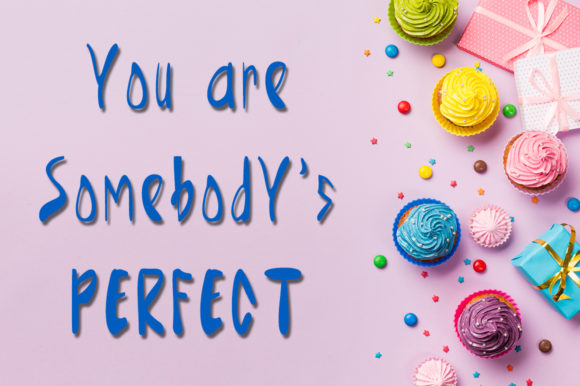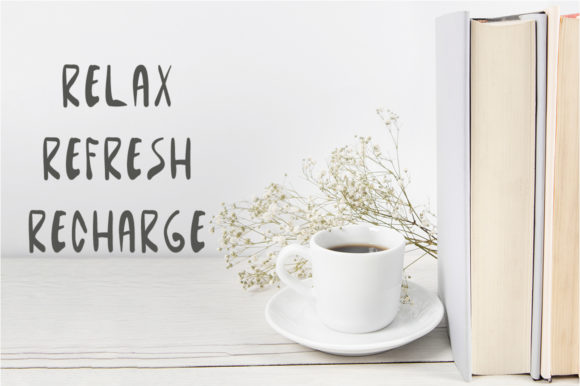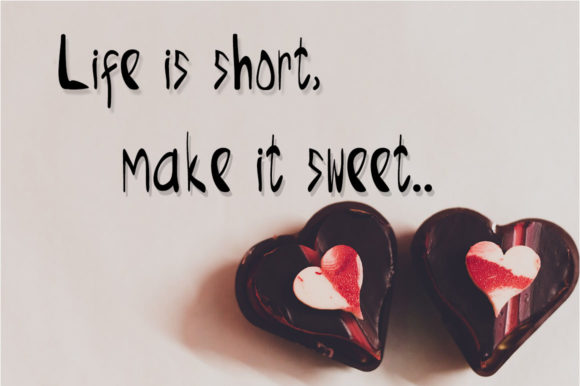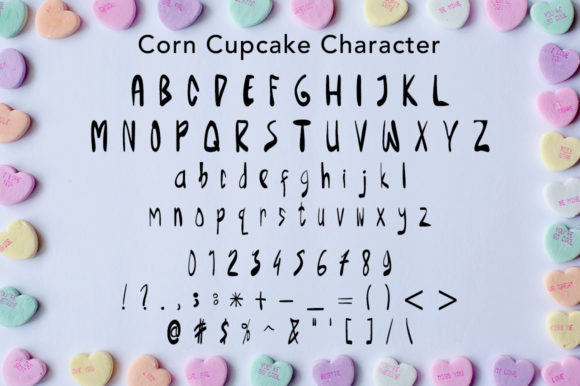
Corn Cupcake Font: The Perfect Addition to Your Design Collection
Are you a designer or crafter looking for a unique and playful font to add to your collection? Look no further than the Corn Cupcake font! This adorable display font is sure to bring a joyful touch to your designs and make them stand out from the crowd.
What is Corn Cupcake Font?
Corn Cupcake font is a cute and quirky display font that is perfect for adding a touch of whimsy to your designs. Its playful and fun design makes it ideal for use in a variety of creative projects, from crafting and DIY tutorials to social media graphics and marketing materials.
Key Features of Corn Cupcake Font
- Cute and Quirky Design: The Corn Cupcake font features a unique and playful design that is sure to capture the attention of your audience.
- Display Font: This font is specifically designed as a display font, making it perfect for use in headlines, titles, and other prominent text elements.
- Easy to Read: Despite its playful design, the Corn Cupcake font is easy to read, making it perfect for use in a variety of applications.
- Versatile: This font can be used in a wide range of creative projects, from digital designs to print materials.
How to Use Corn Cupcake Font in Your Designs
Adding the Corn Cupcake font to your designs is easy! Here are a few ways you can use this beautiful display font:
- Crafting and DIY Tutorials: Use the Corn Cupcake font to add a playful touch to your crafting and DIY tutorials.
- Social Media Graphics: Add a fun and quirky touch to your social media graphics with the Corn Cupcake font.
- Marketing Materials: Use the Corn Cupcake font to add a playful touch to your marketing materials, such as brochures, flyers, and business cards.
- Digital Designs: Add the Corn Cupcake font to your digital designs, such as blog posts, website headers, and email newsletters.
Benefits of Using Corn Cupcake Font
There are many benefits to using the Corn Cupcake font in your designs. Here are a few:
- Adds a Joyful Touch: The Corn Cupcake font adds a joyful and playful touch to your designs, making them more engaging and fun to look at.
- Stand Out from the Crowd: The unique design of the Corn Cupcake font makes it perfect for designers and crafters who want to stand out from the crowd.
- Versatile: This font can be used in a wide range of creative projects, making it a great addition to your design collection.
Tips for Getting the Most Out of Corn Cupcake Font
Here are a few tips for getting the most out of the Corn Cupcake font:
- Use it Sparingly: While the Corn Cupcake font is fun and playful, it can be overwhelming if used too much. Use it sparingly to add a touch of whimsy to your designs.
- Pair it with Other Fonts: The Corn Cupcake font pairs well with other fonts, such as sans serif fonts and script fonts. Experiment with different font combinations to find the perfect look for your design.
- Experiment with Colors: The Corn Cupcake font looks great in a variety of colors. Experiment with different colors to find the perfect look for your design.
In conclusion, the Corn Cupcake font is a cute and quirky display font that is perfect for adding a joyful touch to your designs. Its playful and fun design makes it ideal for use in a variety of creative projects, from crafting and DIY tutorials to social media graphics and marketing materials. With its easy-to-use design and versatile nature, the Corn Cupcake font is a great addition to any design collection.